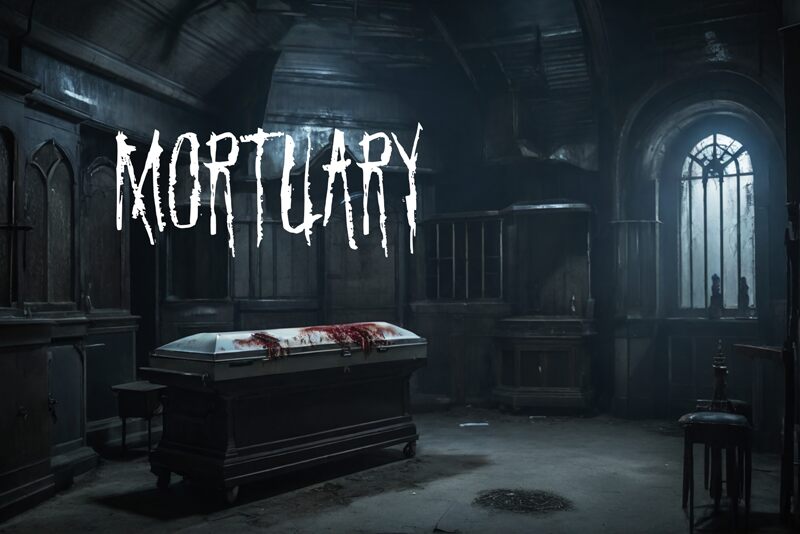
Sawone
Sawone font by Horror Font is a scary display font, the terrifying element that every horror script needs to mess with its viewers’ or readers;’ minds. Its letters have a traditional linear aspect to them with slight distortions and breaks within their bodies. The arrangement of those fine details gives this condensed font its rebellious grungy look.